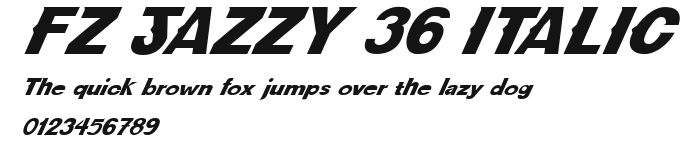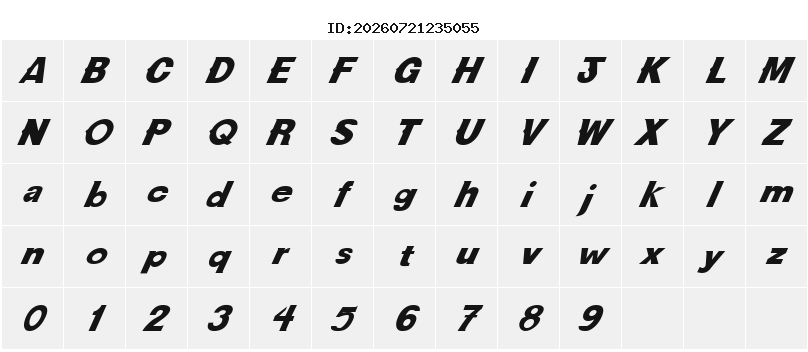
• Font Name: FZ JAZZY 36 ITALIC
FZ JAZZY 36 ITALIC.ttf is a modern, elegant sans-serif font designed for ultimate readability and visual harmony. Perfect for branding, headlines, web design, and print materials.